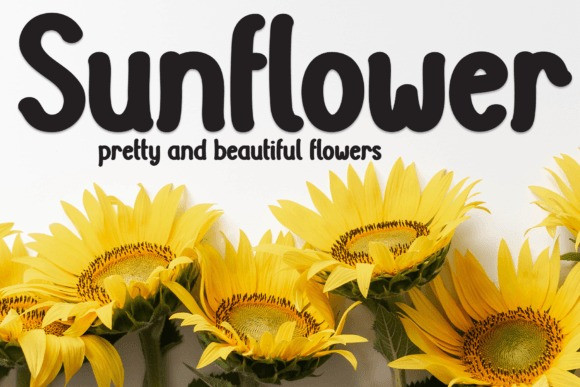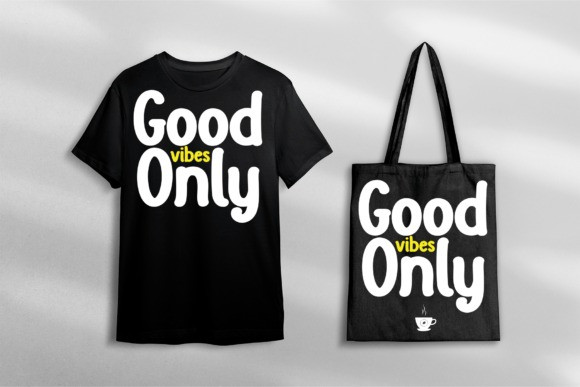
Natural Coffee Font
Natural Coffee Font is a charming and inviting typeface that captures the essence of freshly brewed goodness. With its organic letterforms and warm, earthy tones, this font brings a cozy and comforting feel to your designs. Perfect for coffee shop logos, packaging, and café menus, Natural Coffee Font adds a delightful aroma of authenticity and natural appeal, immersing your audience in the rich and inviting world of coffee culture.